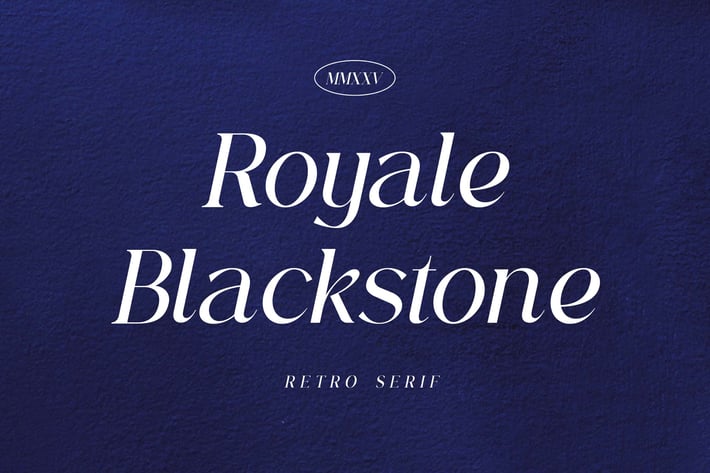
Royale Blackstone Retro Serif Font
Introducing our new product the name is Royale Blackstone Retro Serif Font. Royale Blackstone Retro Serif Font that feels beautiful classy, elegant, and modern. This font is perfectly suited for a wide variety of projects, such as signature, stationery, logo, wedding, typography quotes, magazine or book covers, website headers, clothing, branding, packaging design, and more. Also, fashion-related branding or editorial design displays both masculine and feminine qualities.